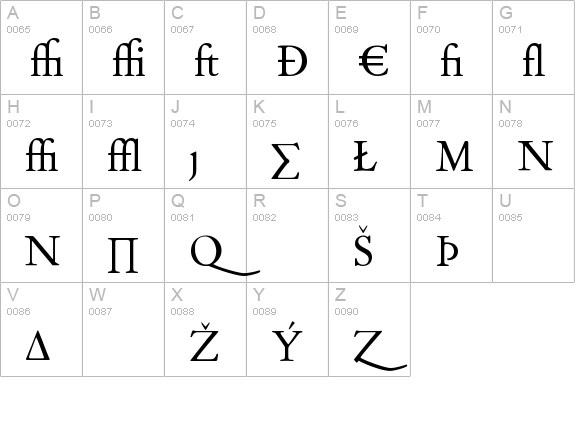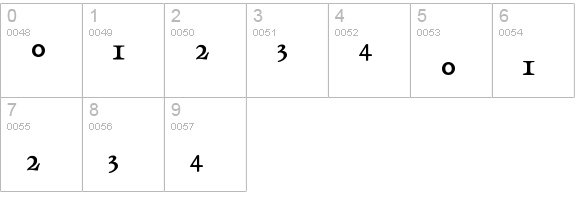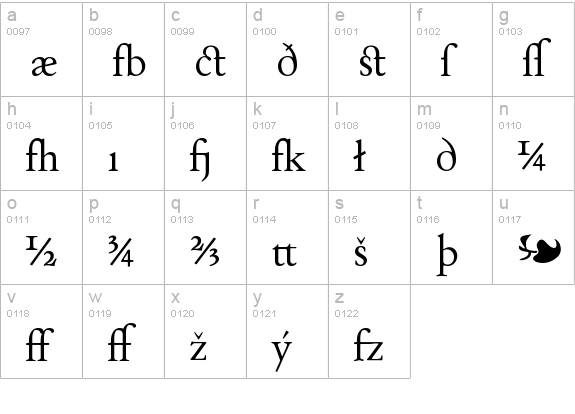
Introducing Day Roman - Expert font, a classic and elegant typeface that exudes sophistication and timelessness. This font is perfect for adding a touch of refinement to any project, whether it be a formal invitation, a professional document, or a stylish logo design. With its clean lines and graceful curves, Day Roman - Expert font is versatile and easy to read, making it ideal for both print and digital applications. The expertly crafted design of this font ensures that your text will always look polished and professional. The best part? Day Roman - Expert font is available for free download at FontsMarket.com, so you can start using it in your projects right away. Don't miss out on this opportunity to elevate your design work with the beauty and sophistication of Day Roman - Expert font. Download it now and see the difference it can make in your designs!